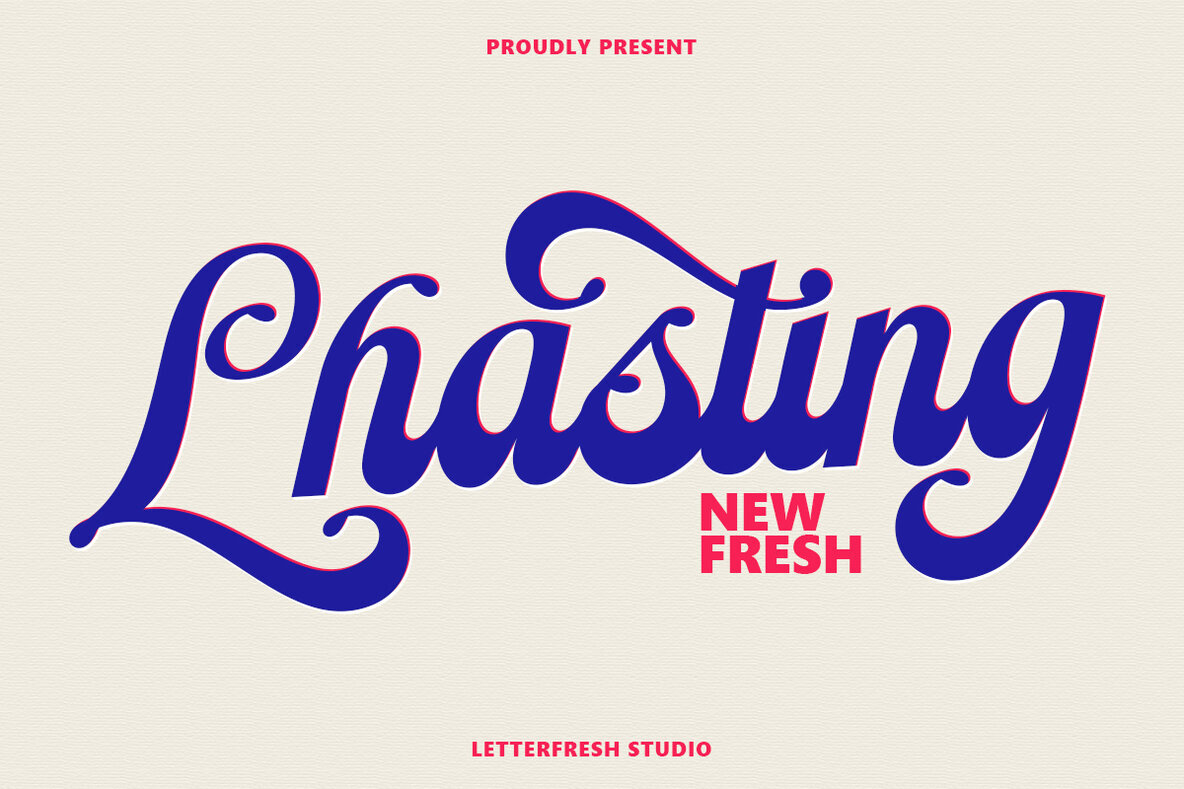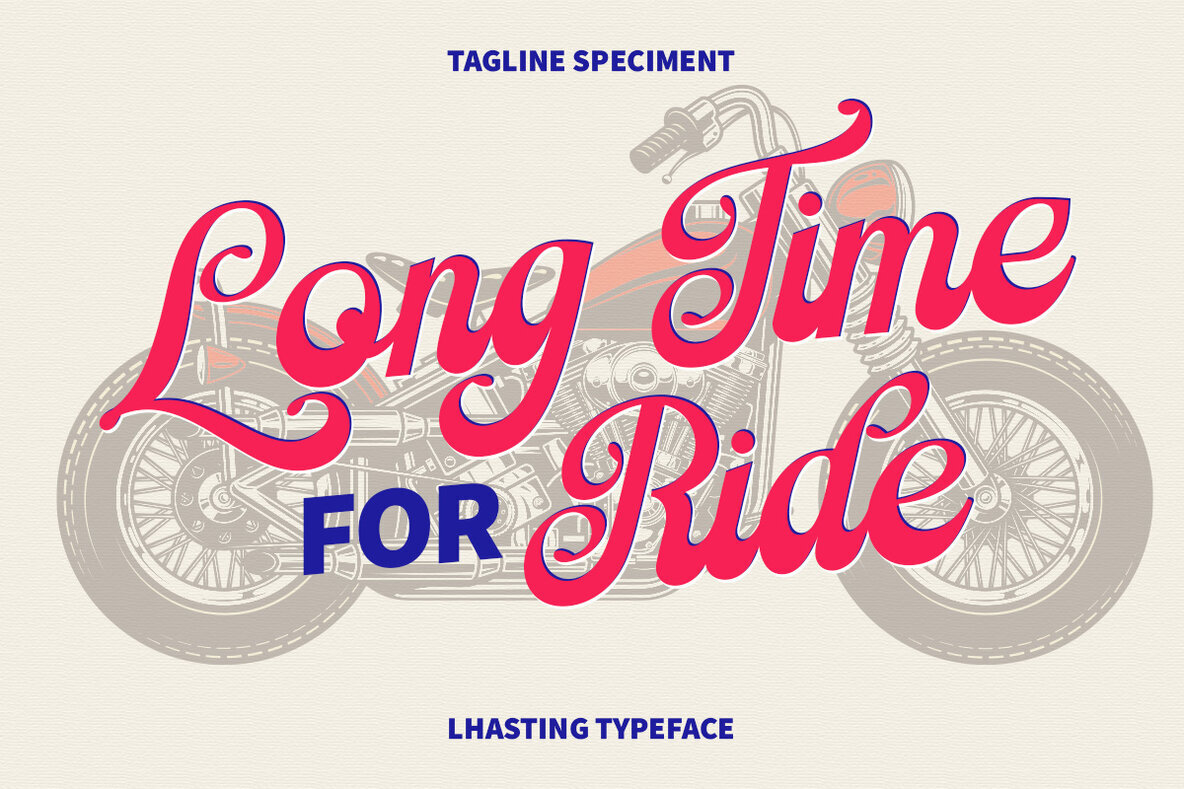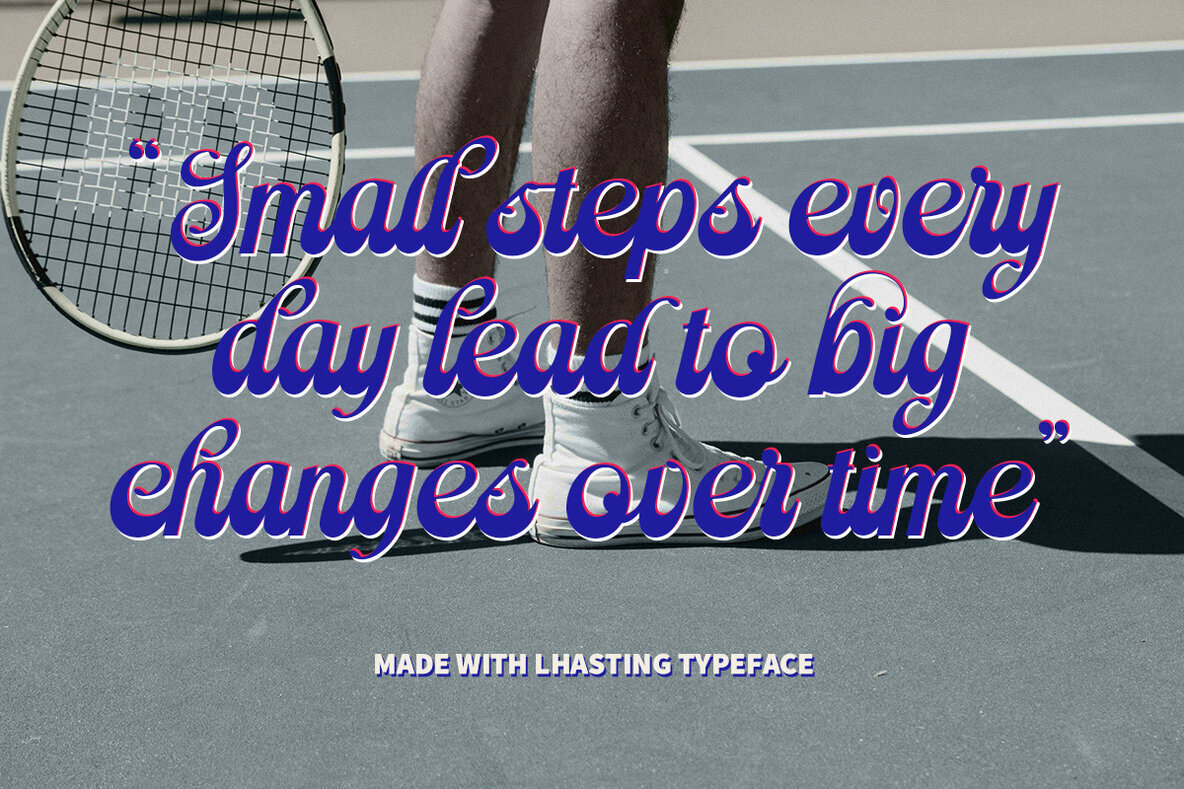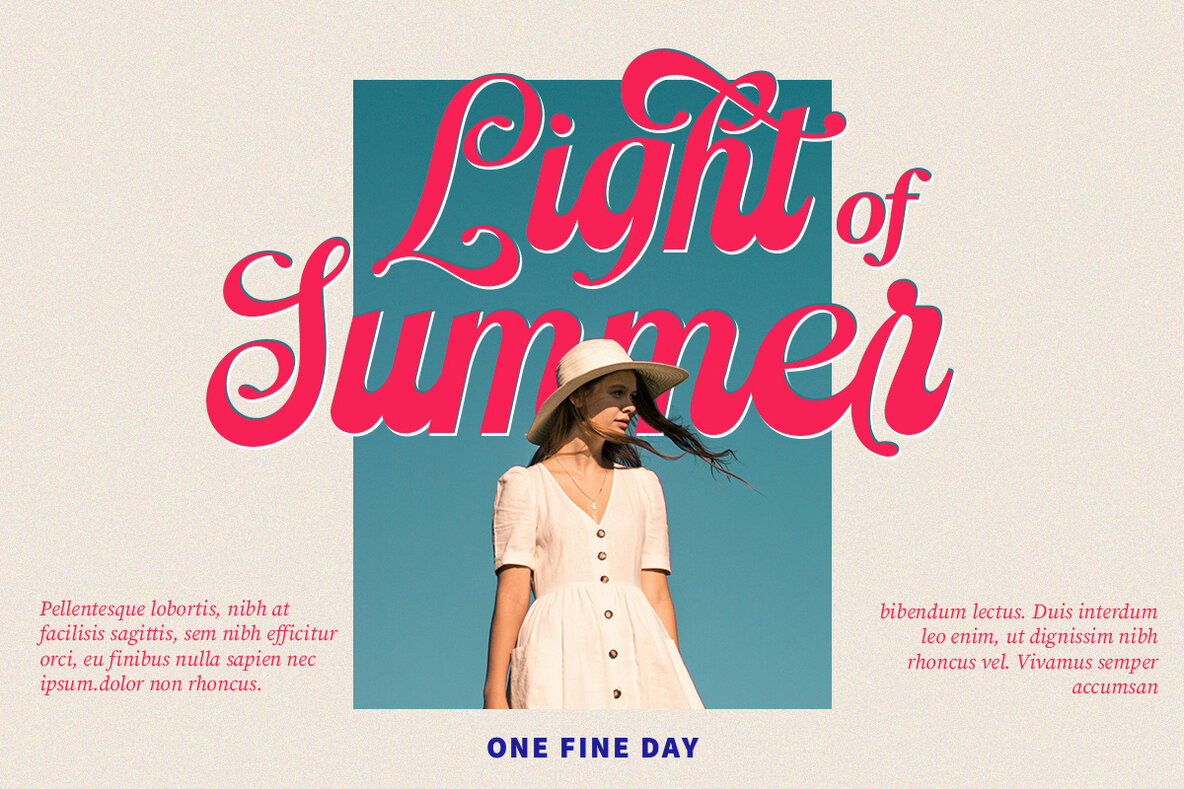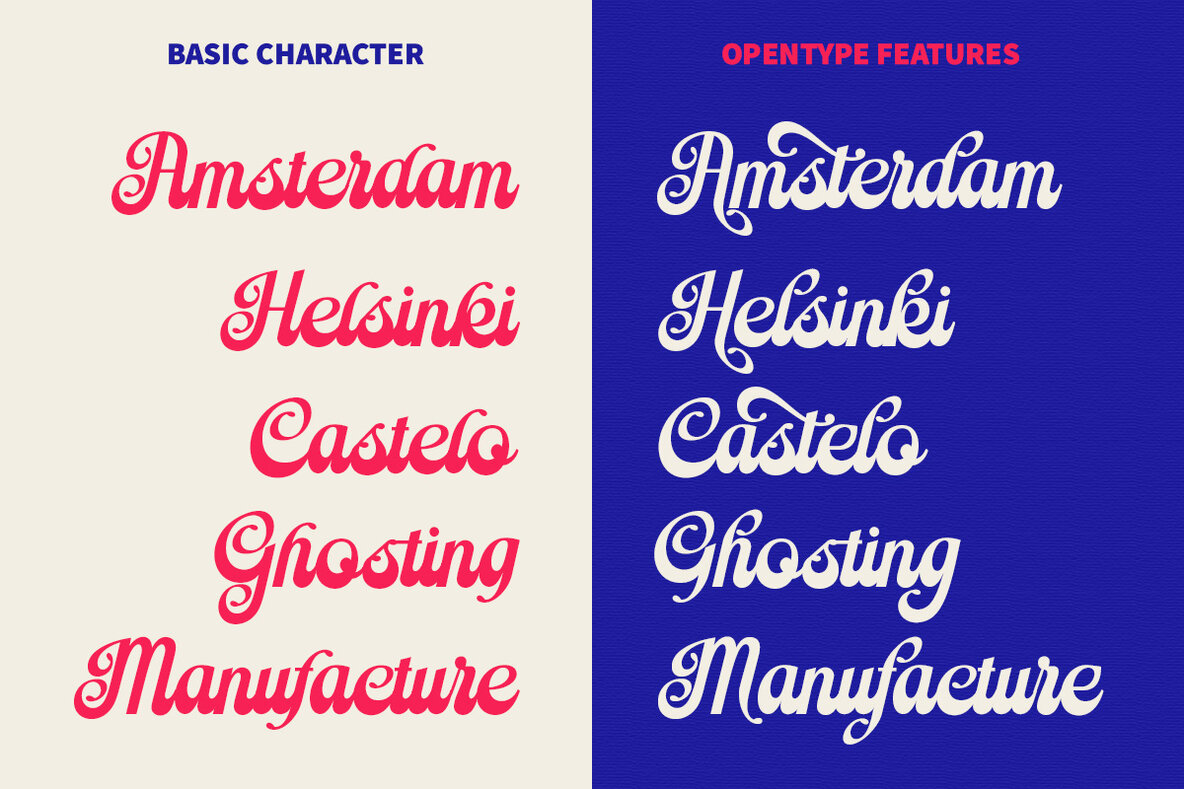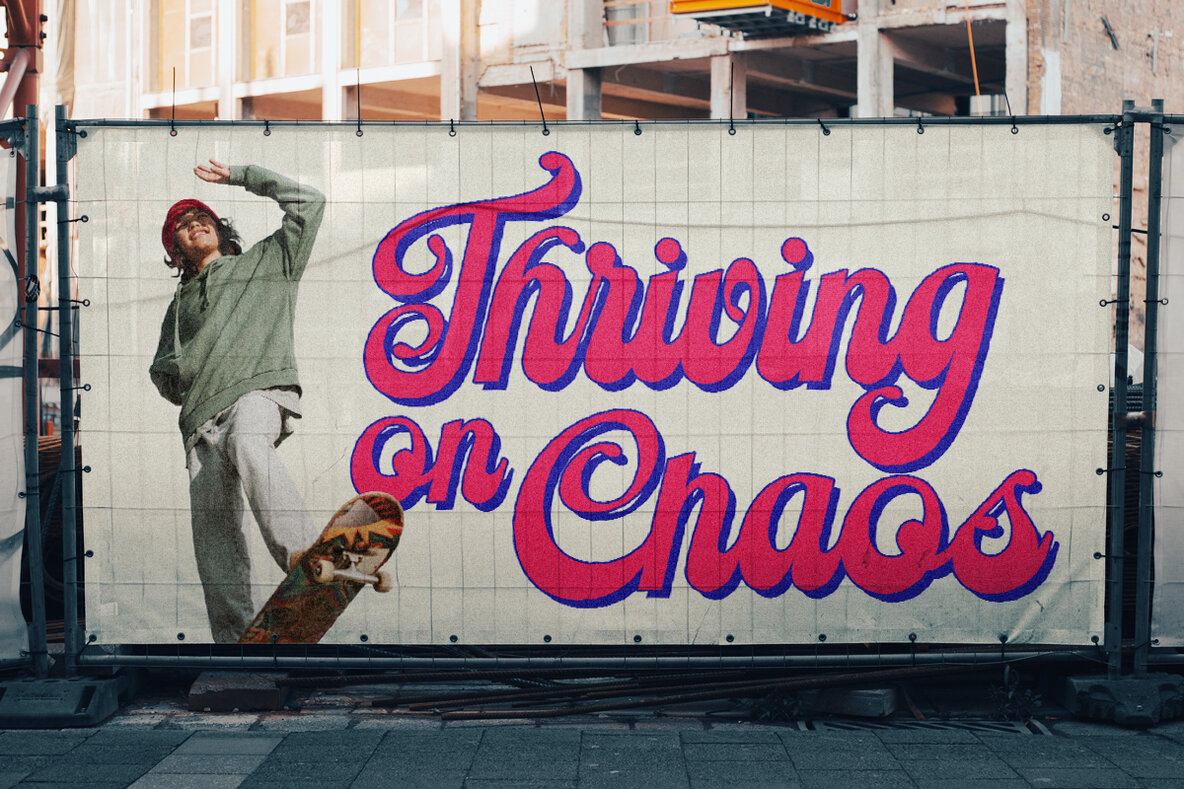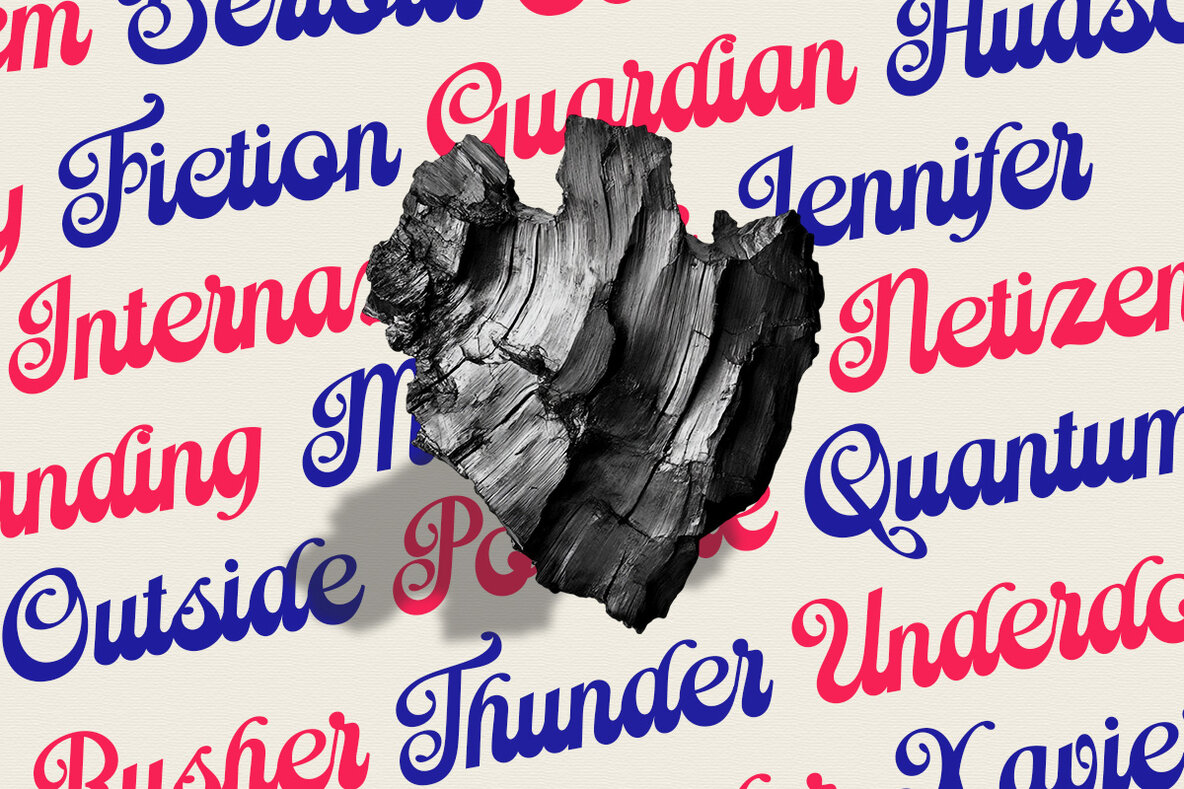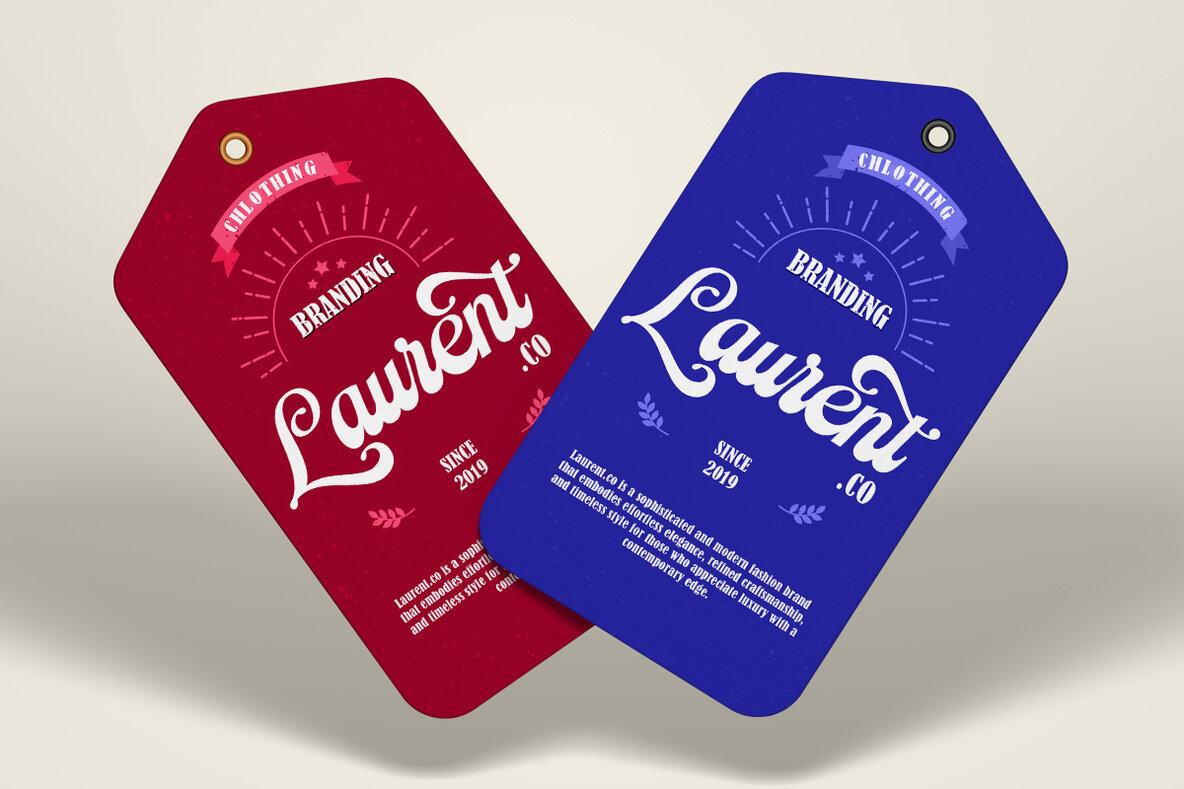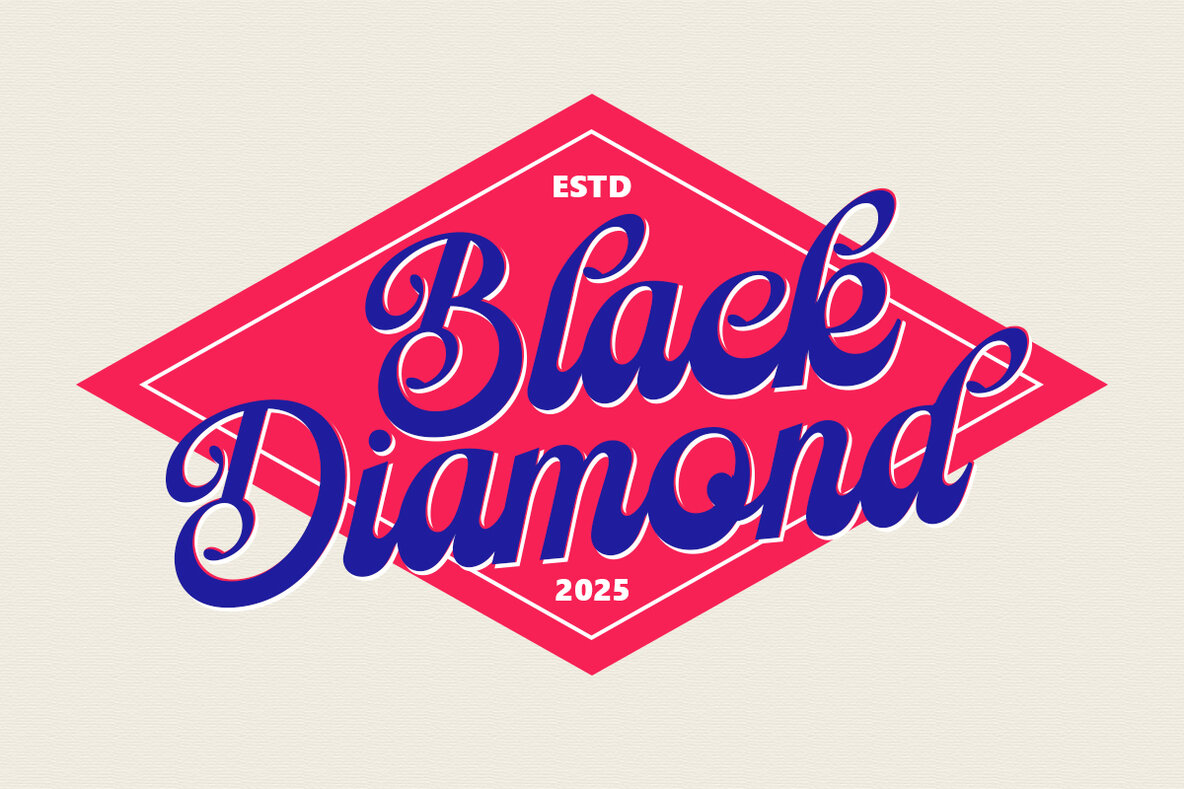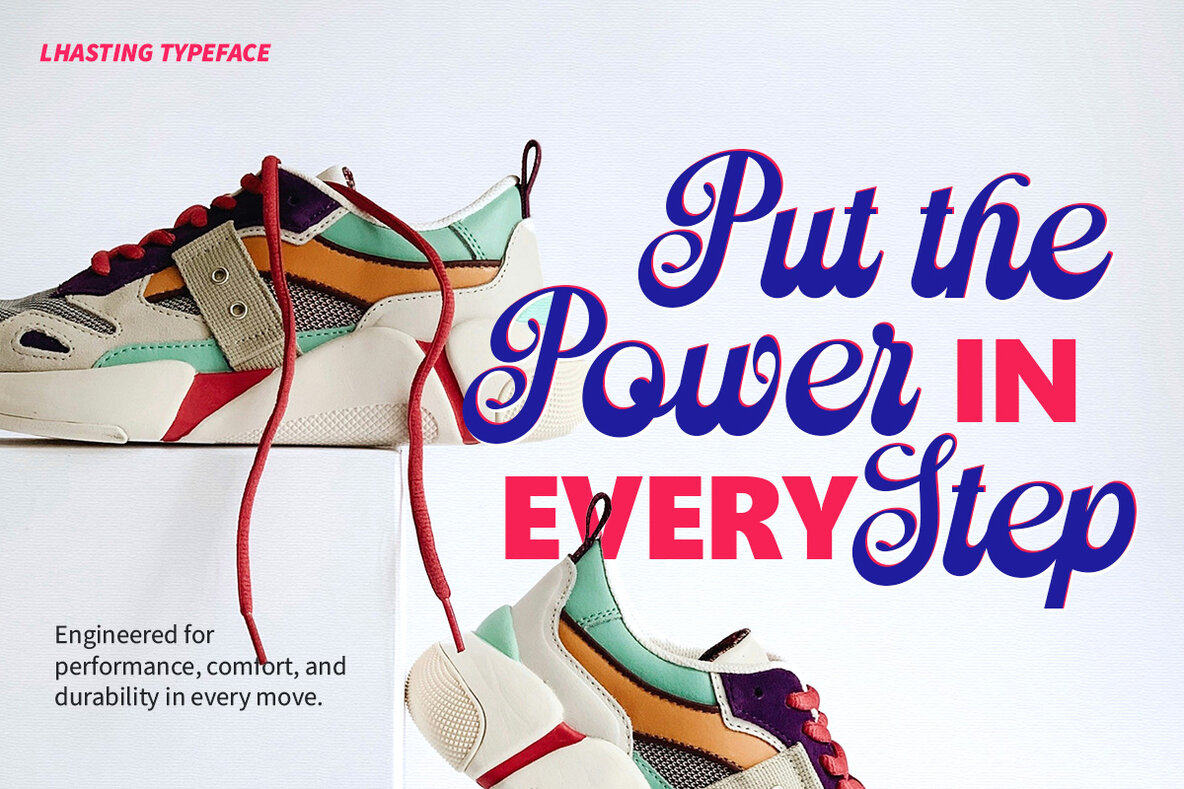
Lhasting Font
Lhasting Script
Immerse yourself in the elegance of the Lhasting Script font, a blend of modern flair with a touch of retro charm. Ideal for a wide array of creative projects, this font includes exciting alternates and ligatures. Whether you're crafting logos, quotes, or blog posts, Lhasting Script offers a distinctive aesthetic suitable for branding, magazine layouts, and even wedding invitations.Lhasting Script: A Fusion of Modern and Retro
Indulge in the creative possibilities that Lhasting Script opens up, designed to enrich your font repertoire beautifully.